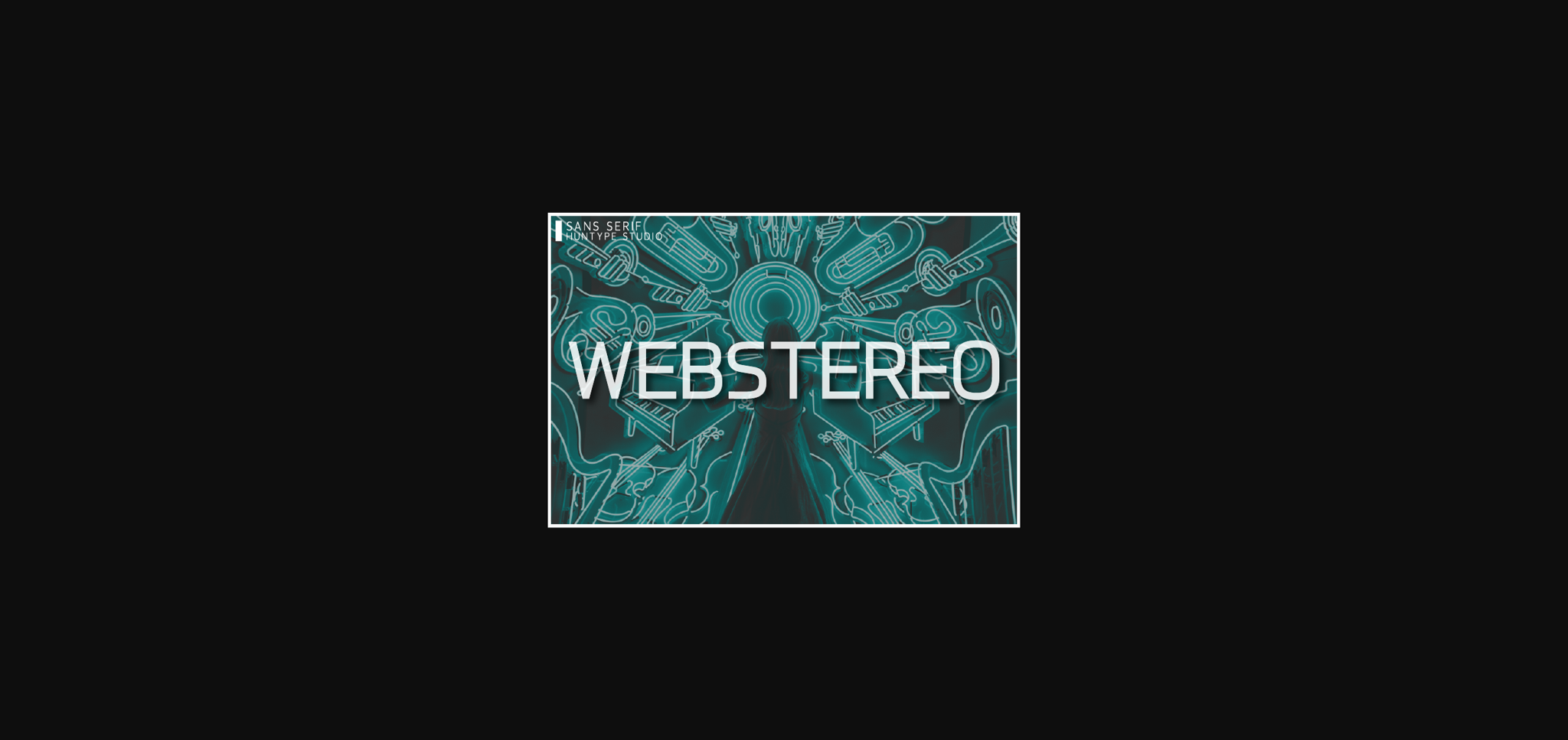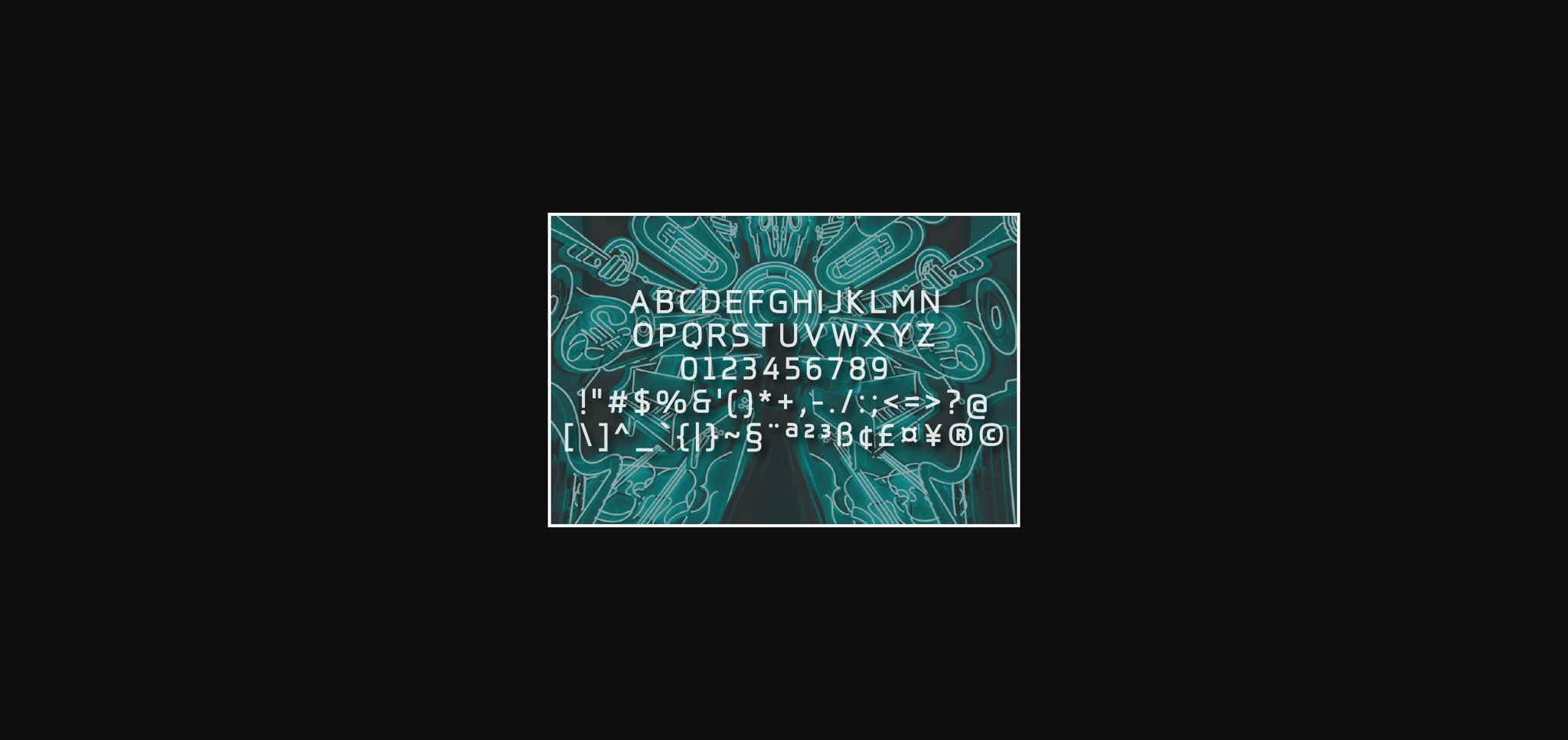
HomeSans Serif FontsWebstereo Font Sans Serif Fonts Webstereo Font FacebookXPinterestWhatsApp 1 of 4 ... Webstereo Font Poster 2... Webstereo Font Poster 3... Webstereo Font Poster 4... About Webstereo Font Webstereo is a modern and unique sans serif font. Its well-balanced weight distribution makes it incredibly versatile, fitting any design you wish to create! DOWNLOAD NOW People also explored Bollivia Font Gimpingi Font Neon Reguler Font Retro Baseball Font Melodie Font Amaro Hendrickson Font Brown Sugar Font Jhermose Font 359 0 TagsWebstereo Font Previous articleElfmount FontNext articleLindoffy Font LEAVE A REPLY Cancel reply Comment: Please enter your comment! Name:* Please enter your name here Email:* You have entered an incorrect email address! Please enter your email address here Website: Save my name, email, and website in this browser for the next time I comment. Personal Use Free Girl Personal Use Free Read more about this font Leadent Script Personal Use Free Read more about this font BD TinyFont Personal Use Free Read more about this font Fribash Personal Use Free Read more about this font BLOG Using Fonts in Digital Marketing: Tips to Strengthen Your Brand Identity In the realm of digital marketing, every visual element plays a crucial role in shaping a brand's identity, and fonts are no exception. The... Best Fonts for YouTube Videos: Make Your Thumbnails Stand Out Transform Your Website: Elevate Your Typography with 7 Best Web Font Generators Modern Sans-Serif Fonts That Brands Love in 2025